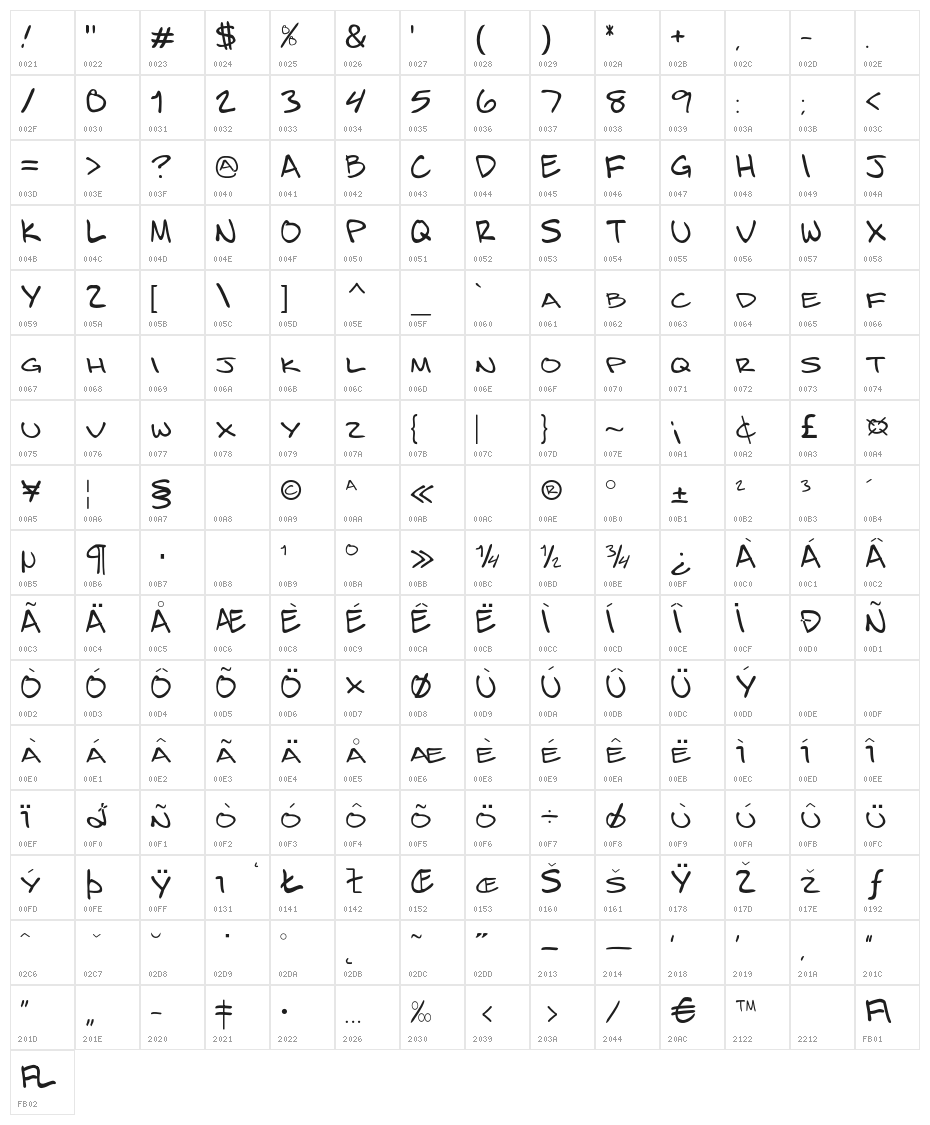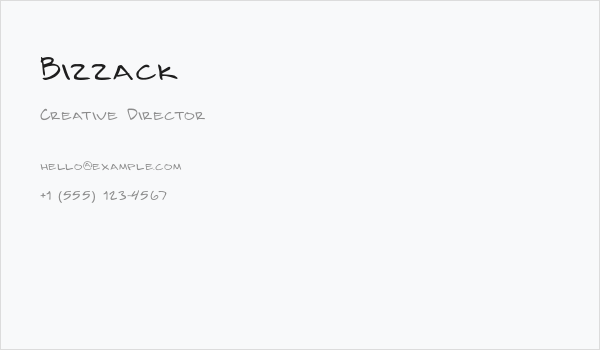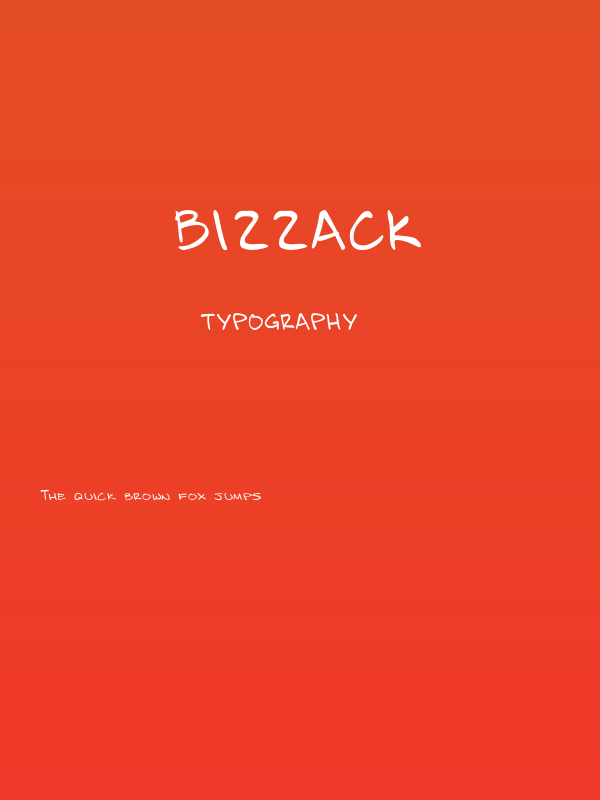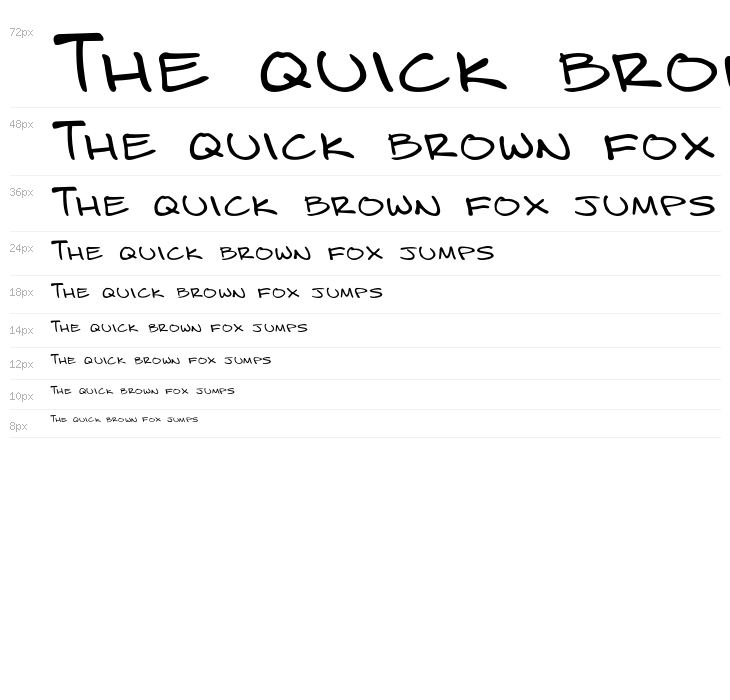
Bizzack Font
Bizzack Description
This font features a playful and casual handwritten style, characterized by its smooth and flowing strokes. The letters are slightly slanted, giving a dynamic and informal appearance. The uppercase and lowercase letters maintain a consistent style, with rounded edges and a natural, organic feel. The numbers and special characters follow the same aesthetic, ensuring uniformity across all glyphs. This font's relaxed and approachable design makes it suitable for projects that aim to convey friendliness and creativity.
Overall StyleCasual
Use CaseHeadlines, Informal text, Creative projects
Proposed ProjectsIdeal for greeting cards, invitations, children's books, and creative branding projects.